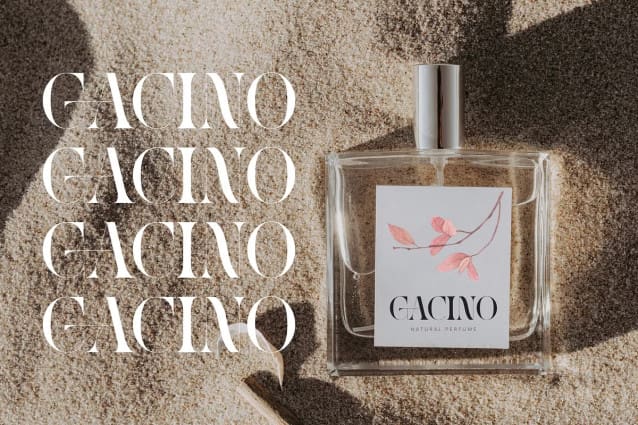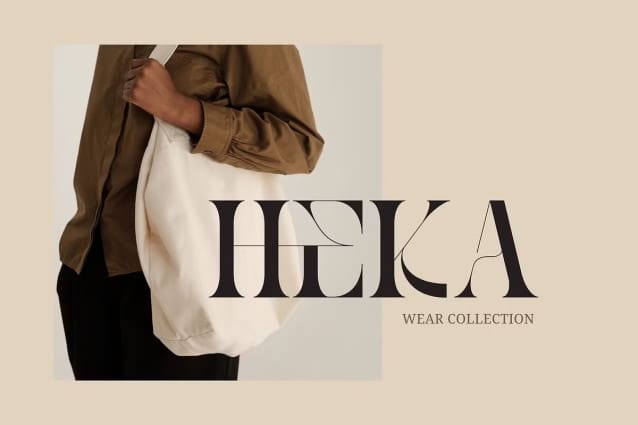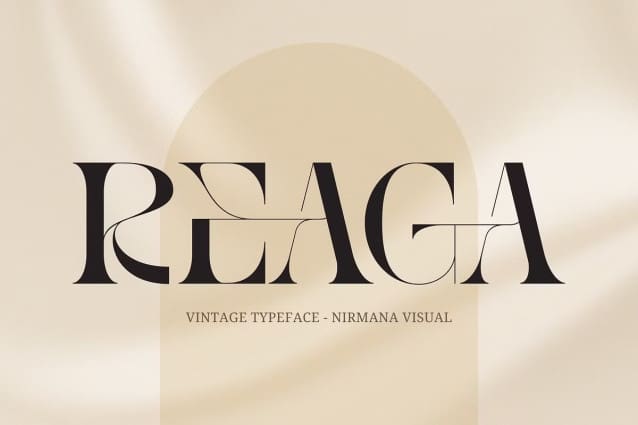
Reaga Font
Reaga Font offers beautiful typographic harmony for a diversity of design projects, including logos & branding, social media posts, advertisements & product designs.